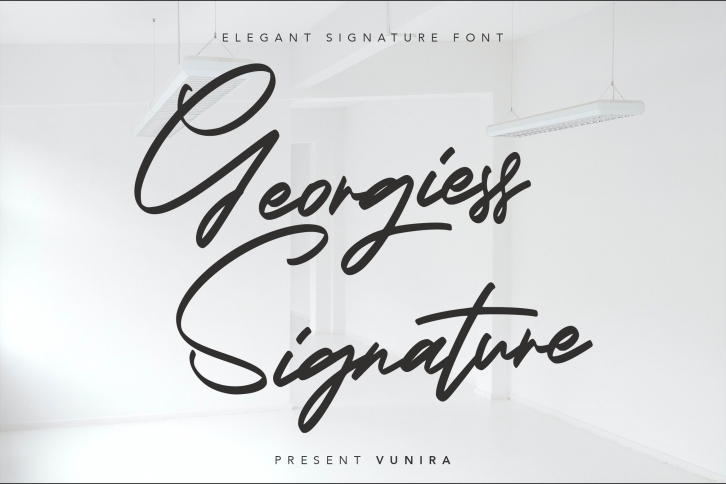
Georgiess Signature | Elegant Signature Font Download
Georgiess Signature is a gorgeous font that was realeased on July 14, 2020. The font can be used in many style contexts and design environments. Perfect for invitations, magazines, websites, logos, and more! It was designed by Vunira and the file size is 12.66 MB. Thanks for checking out this font!